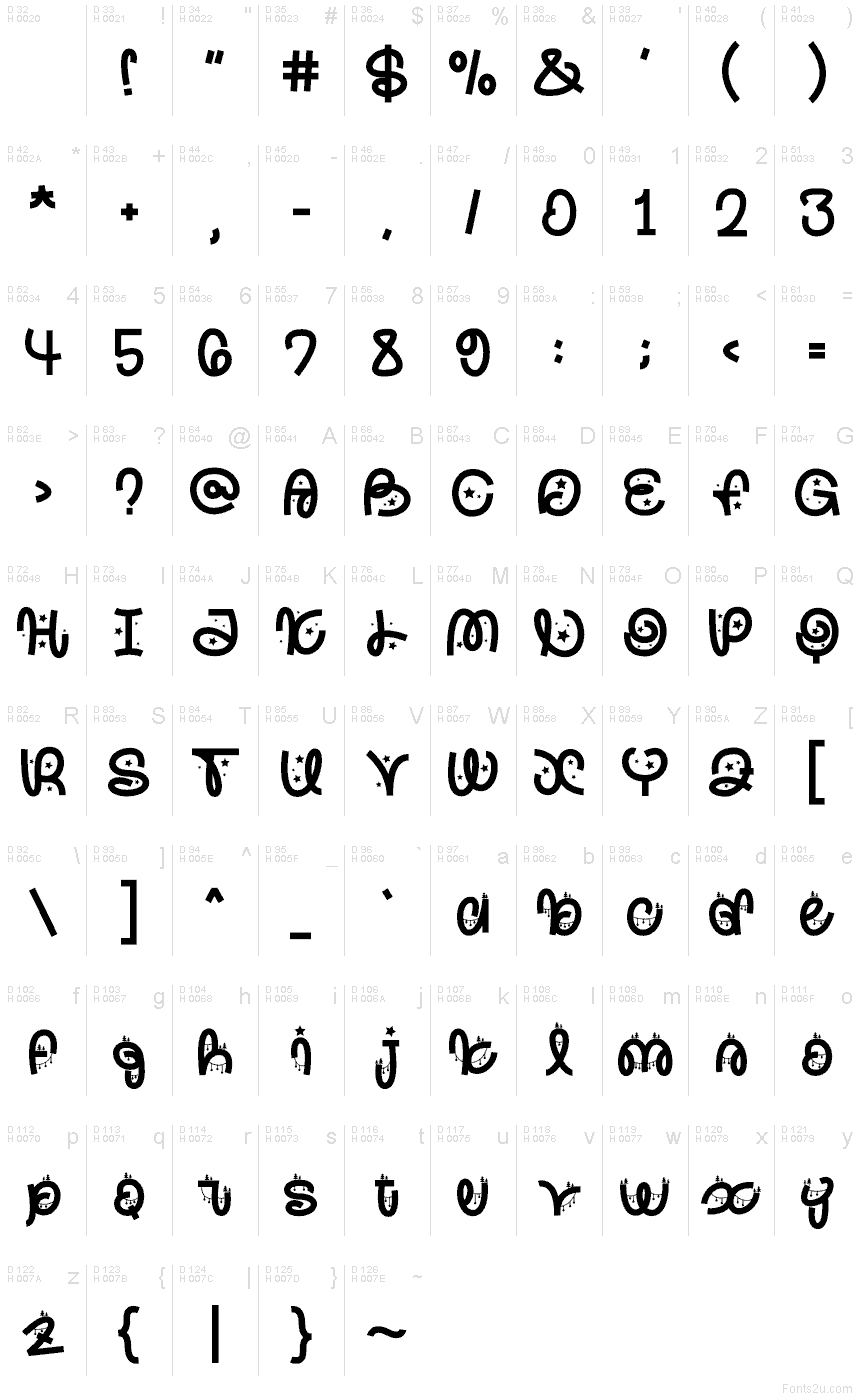
Listmax
Listmax font by Jadatype is a free Christmas holiday typeface that turns every word into a festive scene. Chunky, looping letters are draped with tiny trees, stockings, and string lights, so text feels like a cozy storefront window or a hand-cut paper garland. The bold silhouettes read clearly even at small sizes, while the playful details reward a closer look and add instant seasonal charm.
Using Listmax, you can bring storybook warmth to Christmas cards, party invitations, kids’ crafts, advent calendars, social media graphics, and holiday packaging. This free font shines on posters and banners where you want whimsical, family-friendly energy without looking too polished. For balance, pair Listmax with a simple sans serif for body copy and let these decorative letters stay large and in the spotlight.